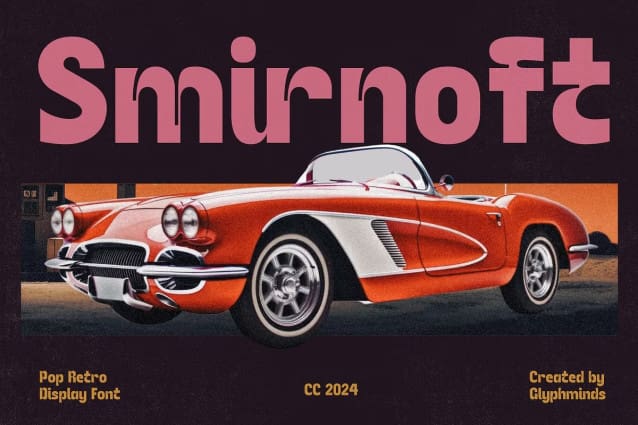
Smirnoft Font
Smirnoft Font, a pop retro display font that brings a touch of vintage flair to your modern designs. Inspired by the classic aesthetics of the mid-20th century, this font is perfect for adding a nostalgic yet futuristic vibe to your projects. Whether you’re working on posters, logos, or social media graphics, Smirnoft’s bold and curvy letters will make your text stand out. Created by Glyphminds, this font is a must-have for any designer looking to capture the essence of retro-futurism.